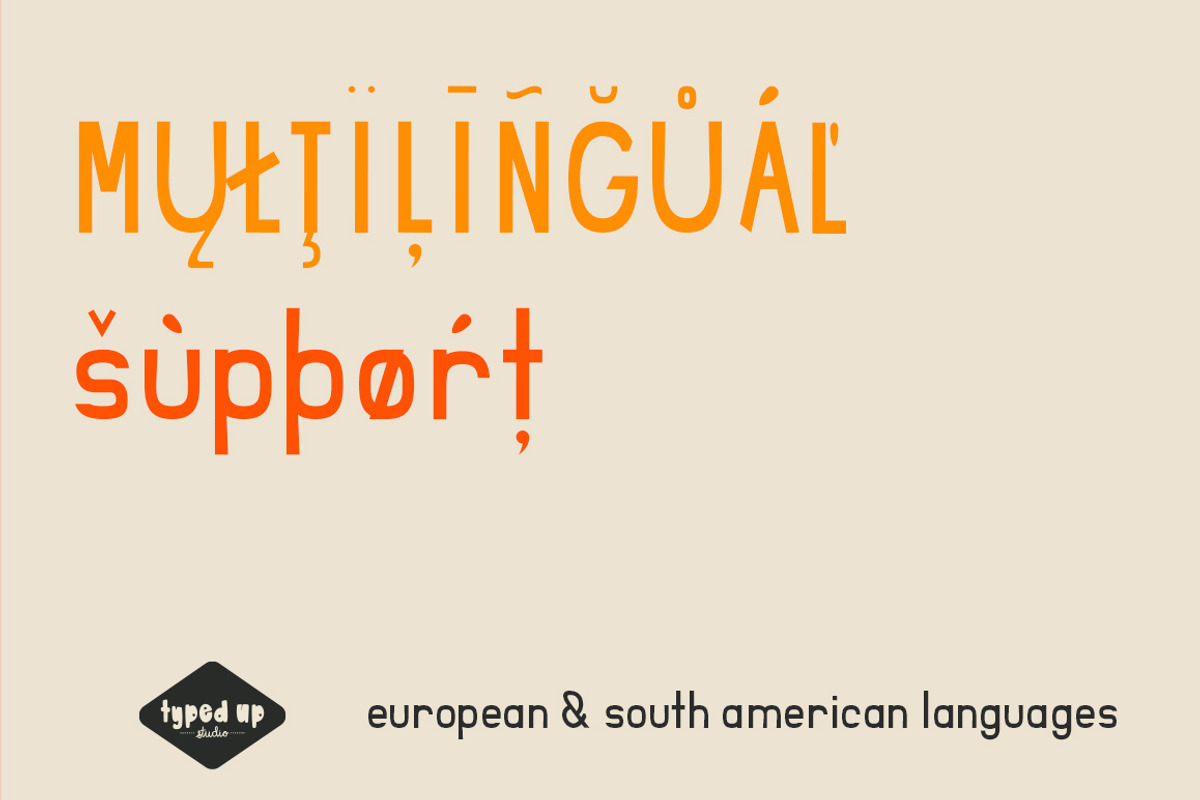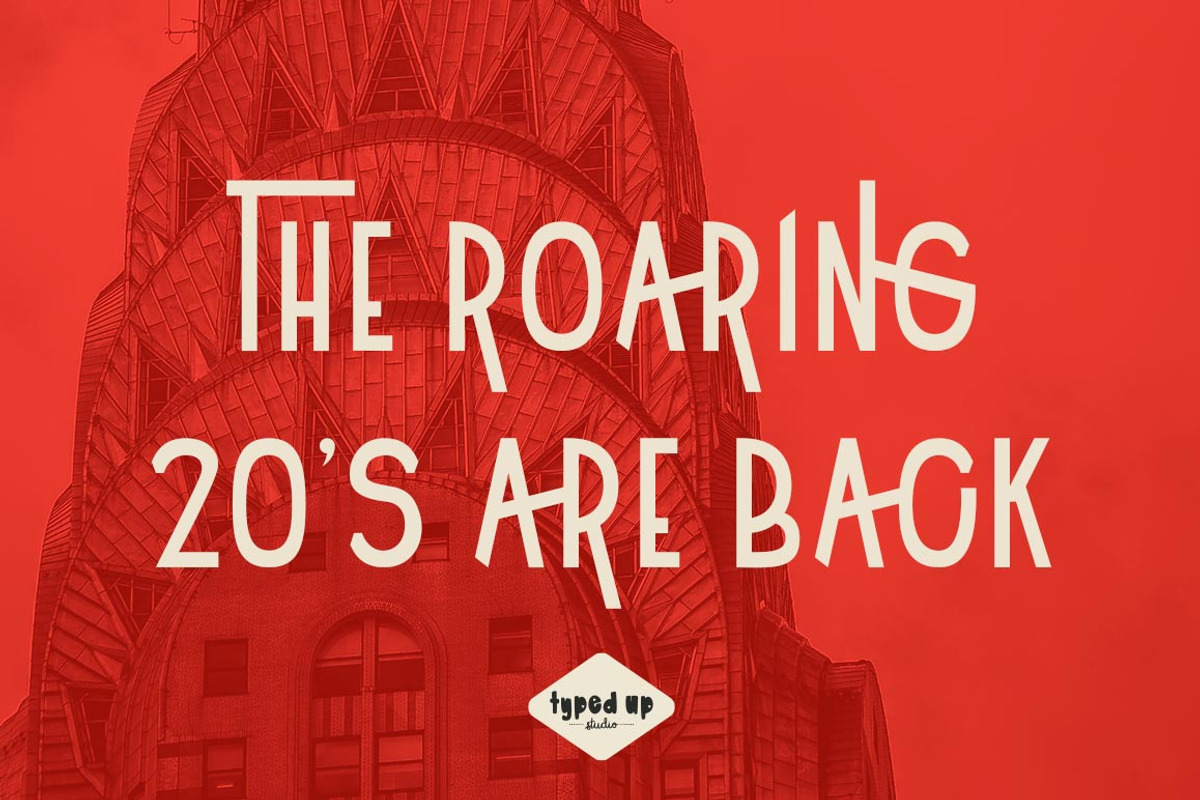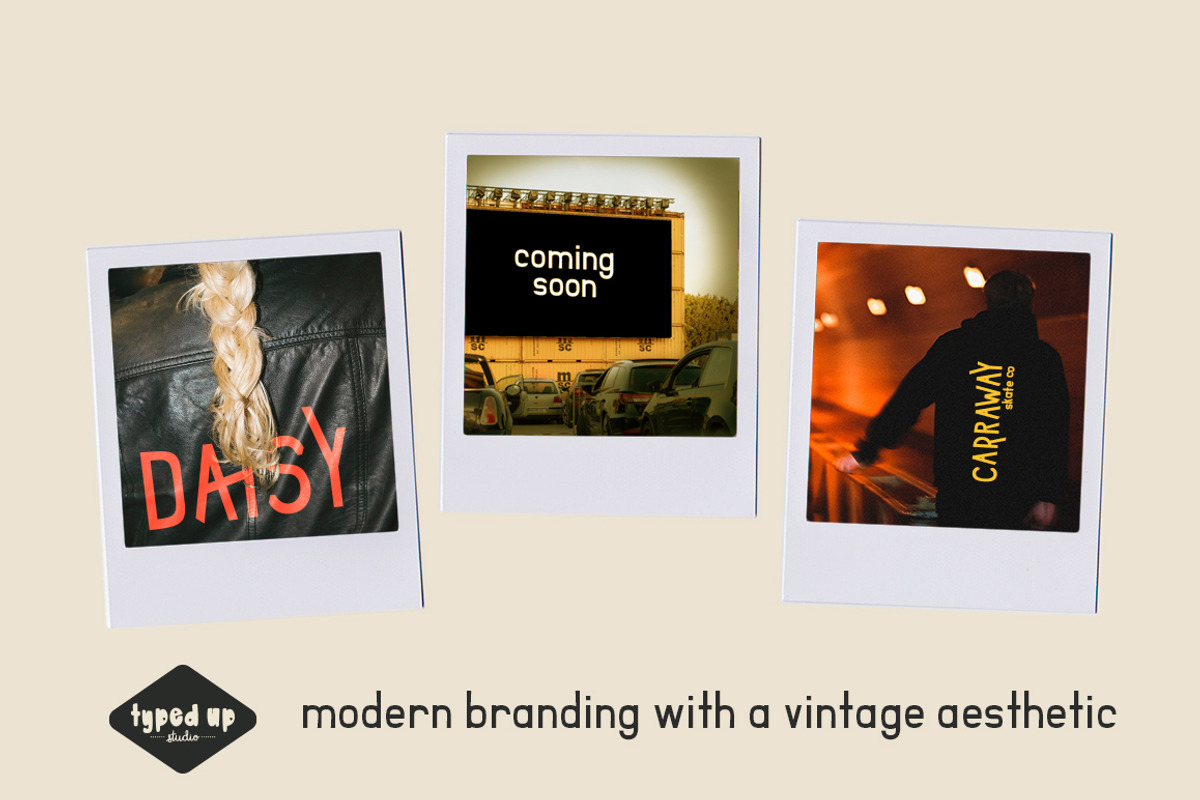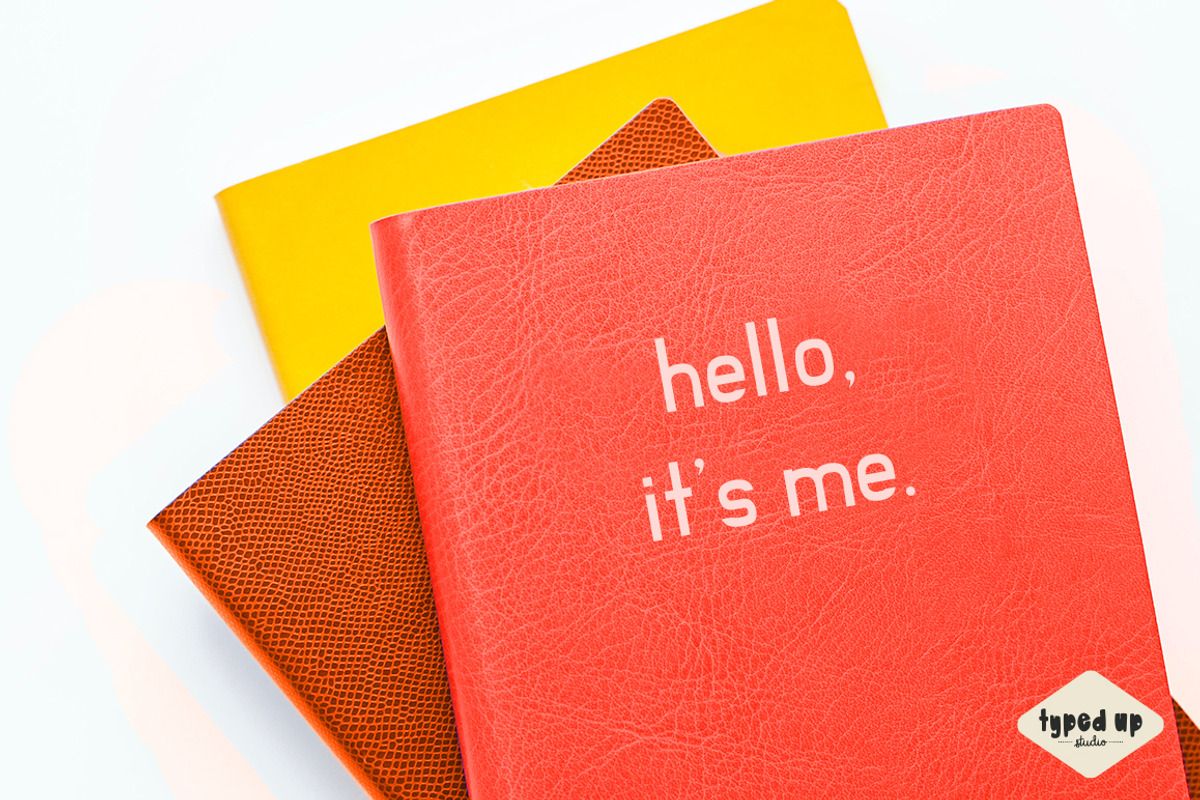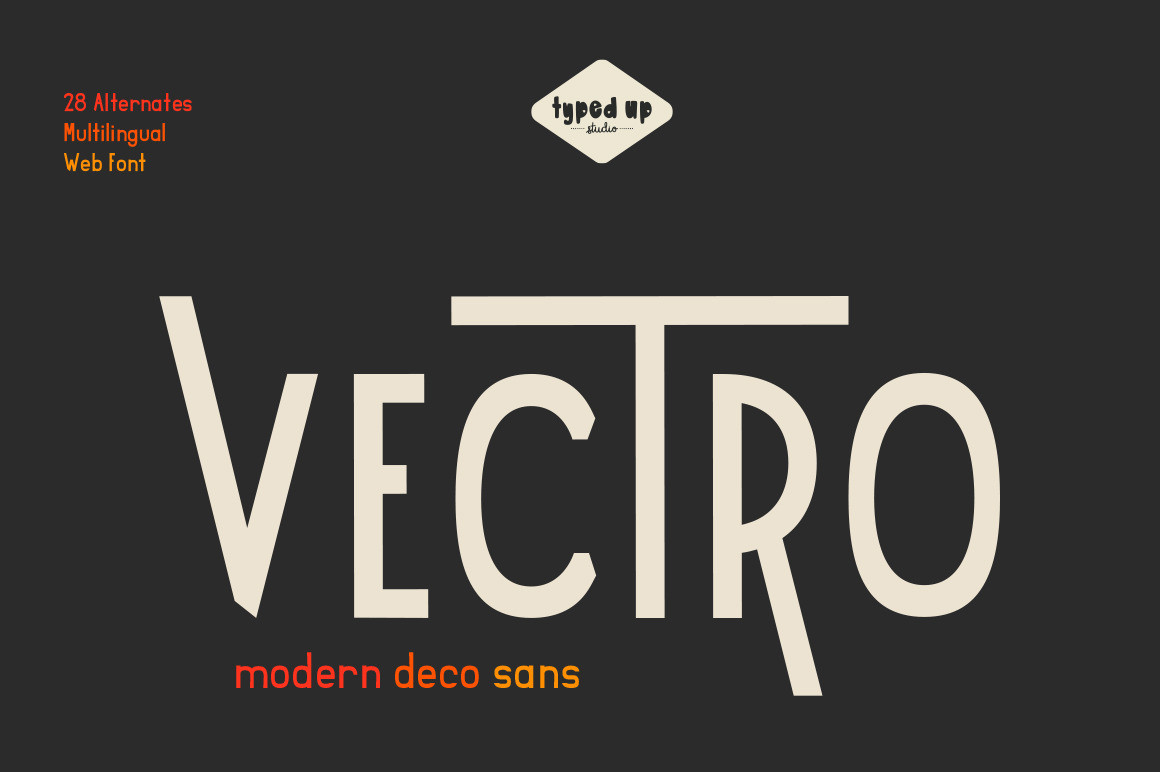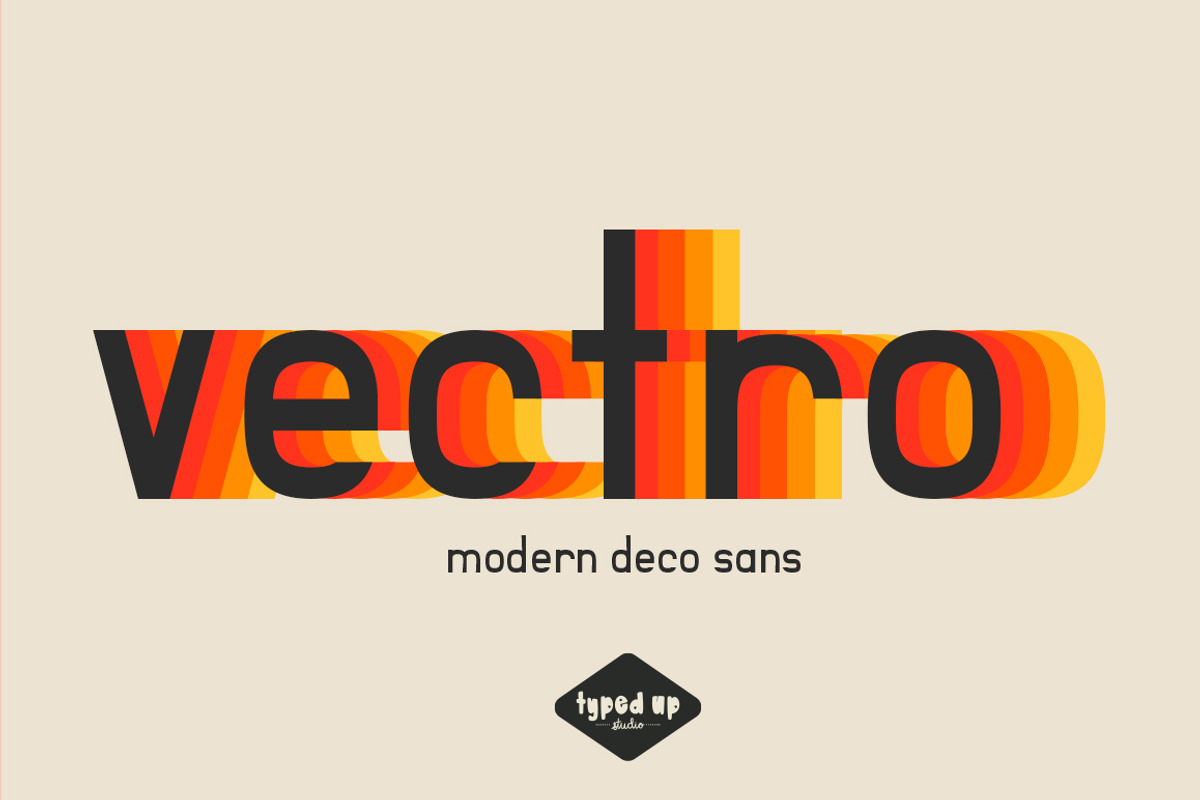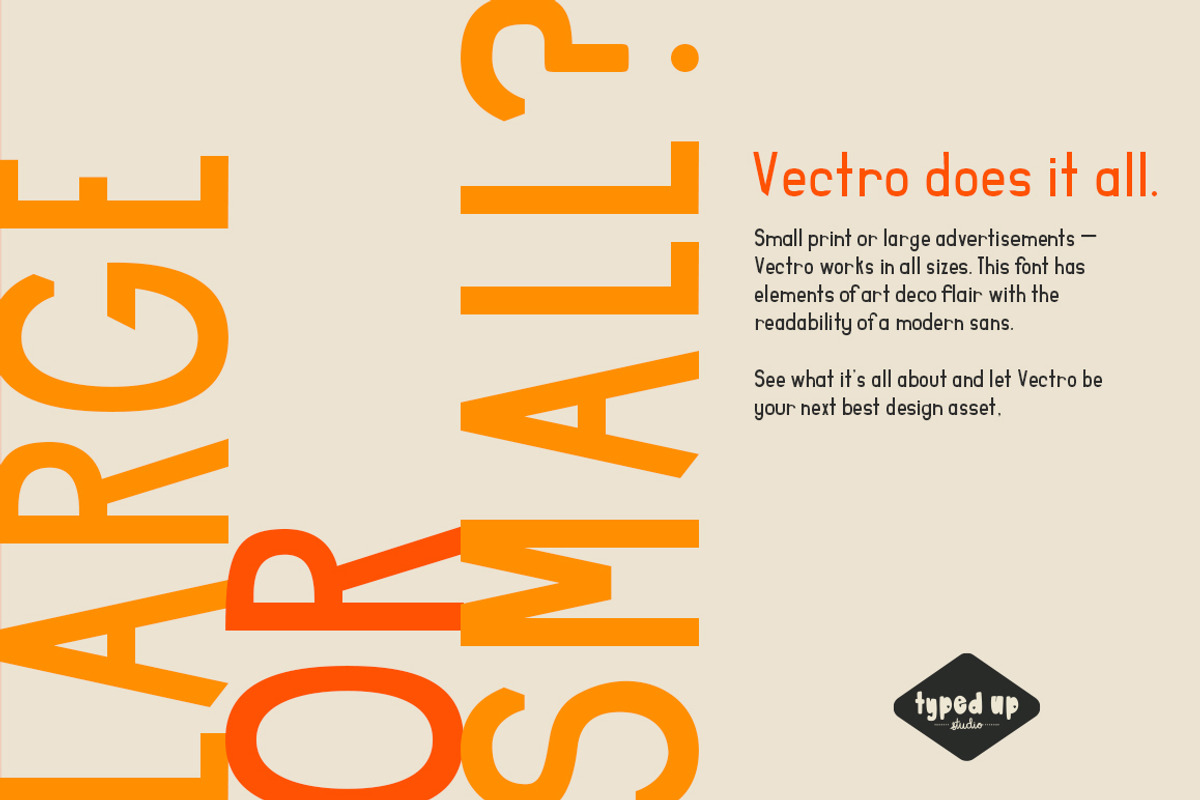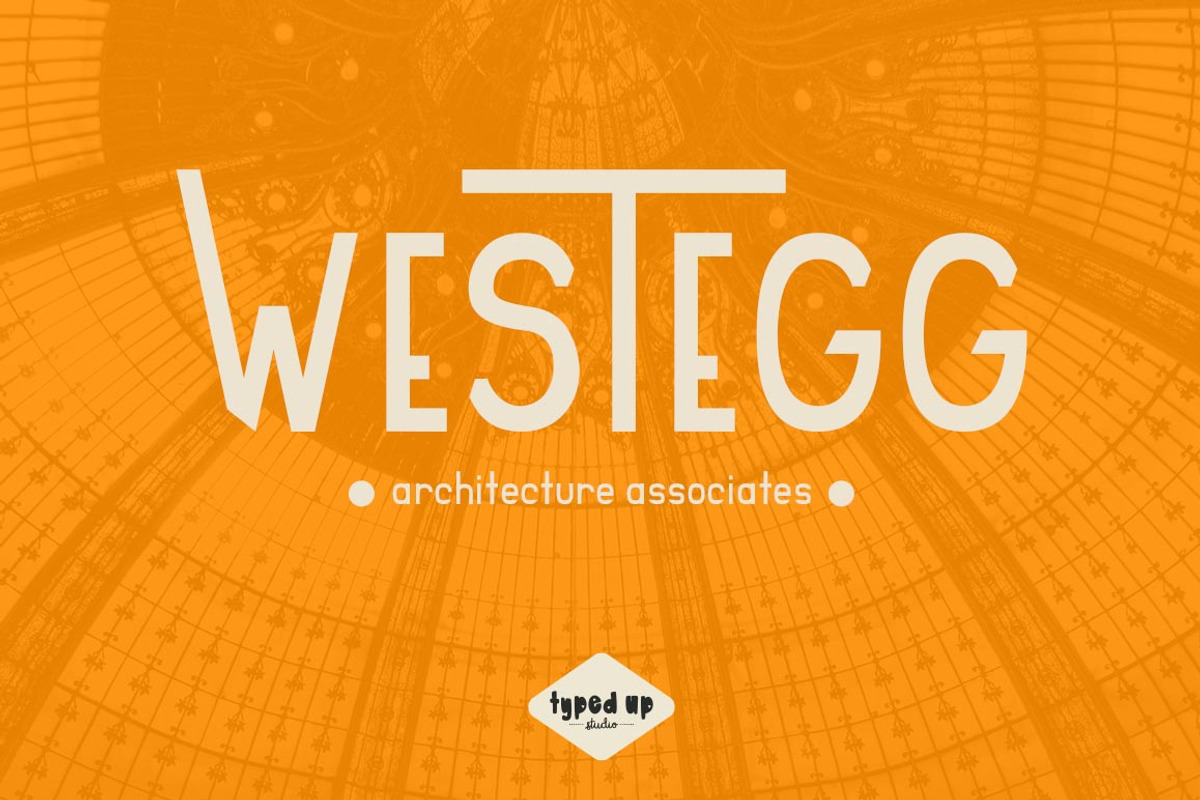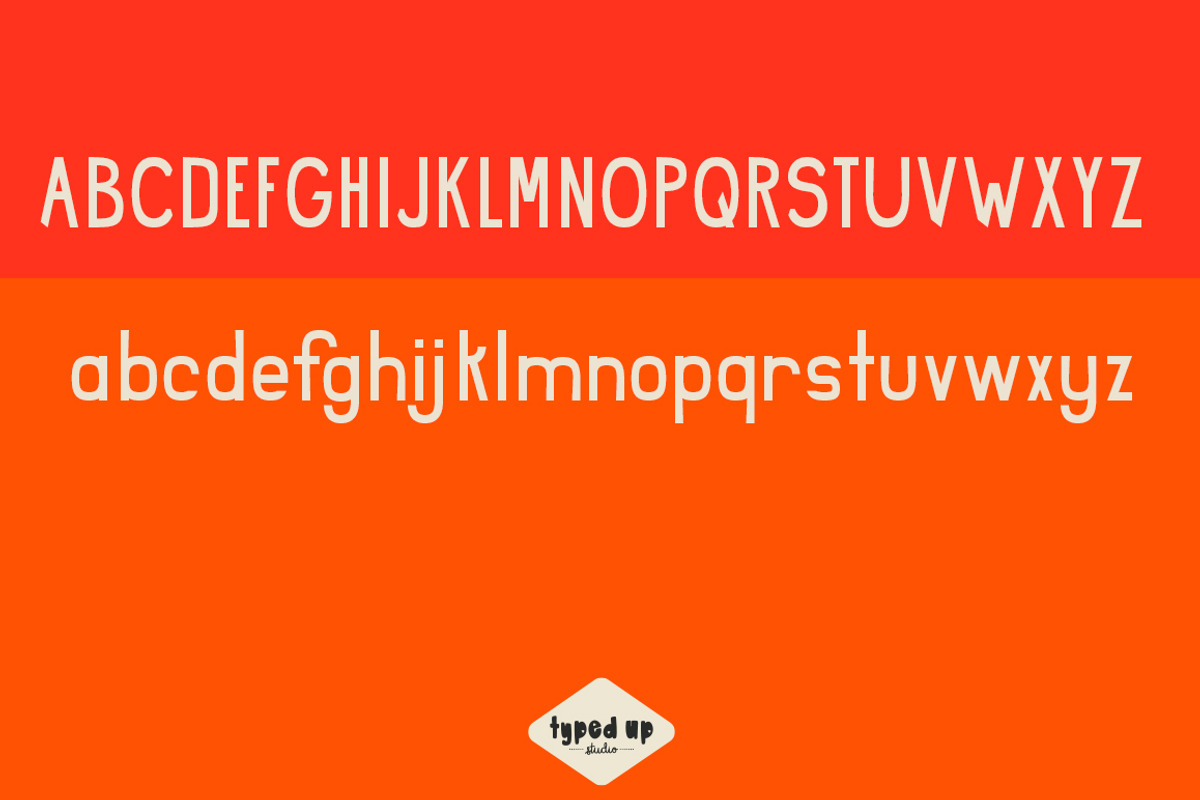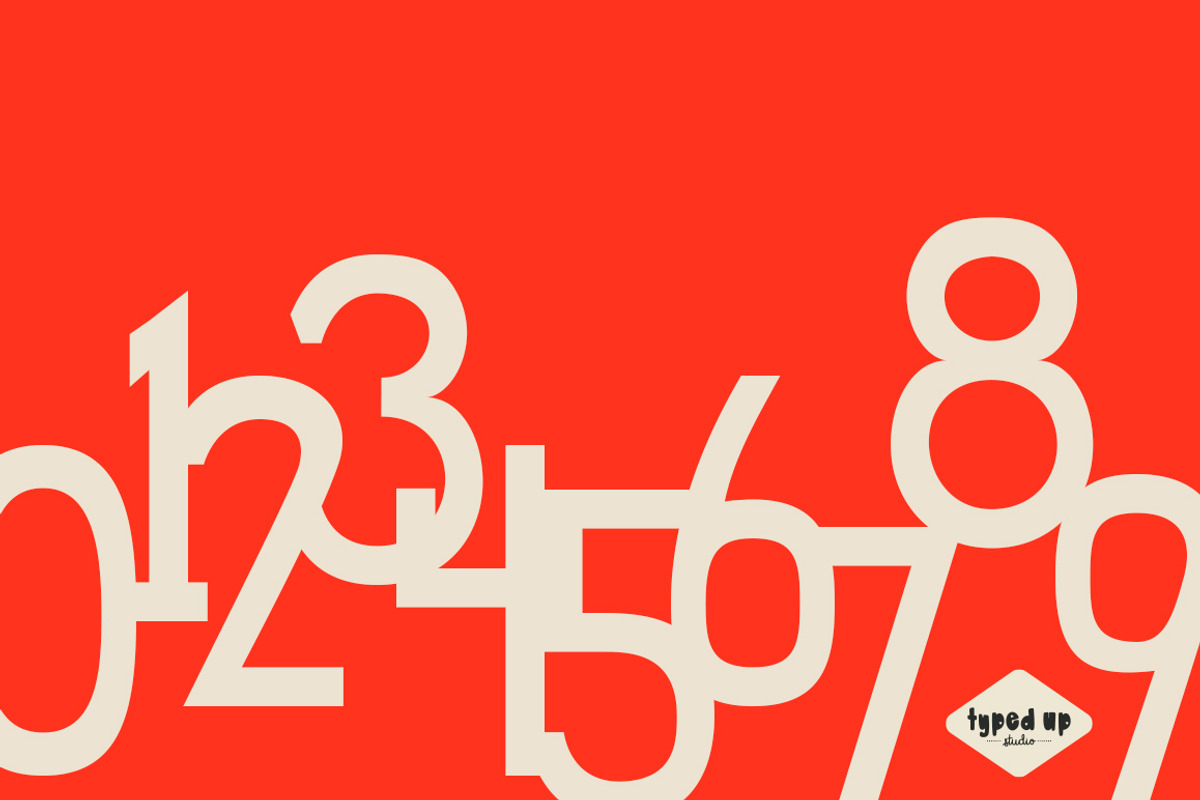
Vectro | Modern Deco Sans Font
The roaring 20s are back. Vectro is a modern sans serif font with a hint of art deco flair. This font features full European & South American language support, however, please try your text in the testing tool above to make sure the characters you need are available.
Vectro also features 28 alternate characters that can be used with Adobe CC programs by accessing your Glyphs window. Plus the alternate characters as a separate font for non-Adobe programs.